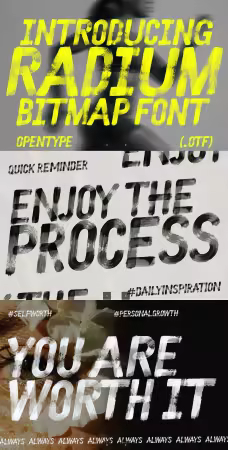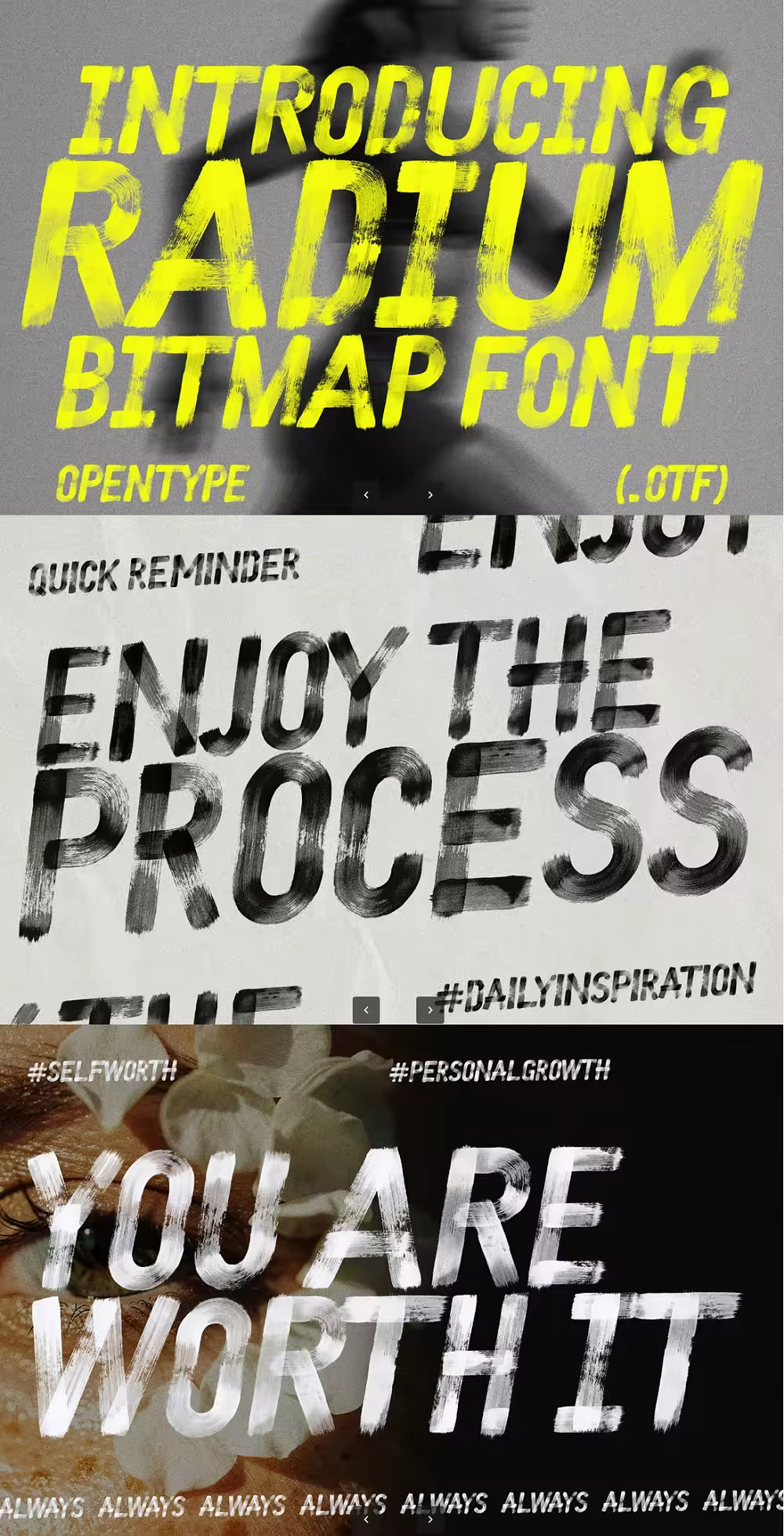
Whether you are designing for the underground music scene, extreme sports, or modern streetwear brands, RADIUM delivers a punchy, aggressive aesthetic that demands attention. It thrives in high-contrast environments—think neon yellow on black noise or stark white on dark concrete.
Perfect Use Cases
Album Art: Ideal for techno, punk, industrial, or hip-hop cover designs.
Event Posters: Capture the energy of raves, skate competitions, or underground gigs.
Social Media Graphics: Make your Instagram stories and TikTok overlays pop with a glitchy, cyber-aesthetic.